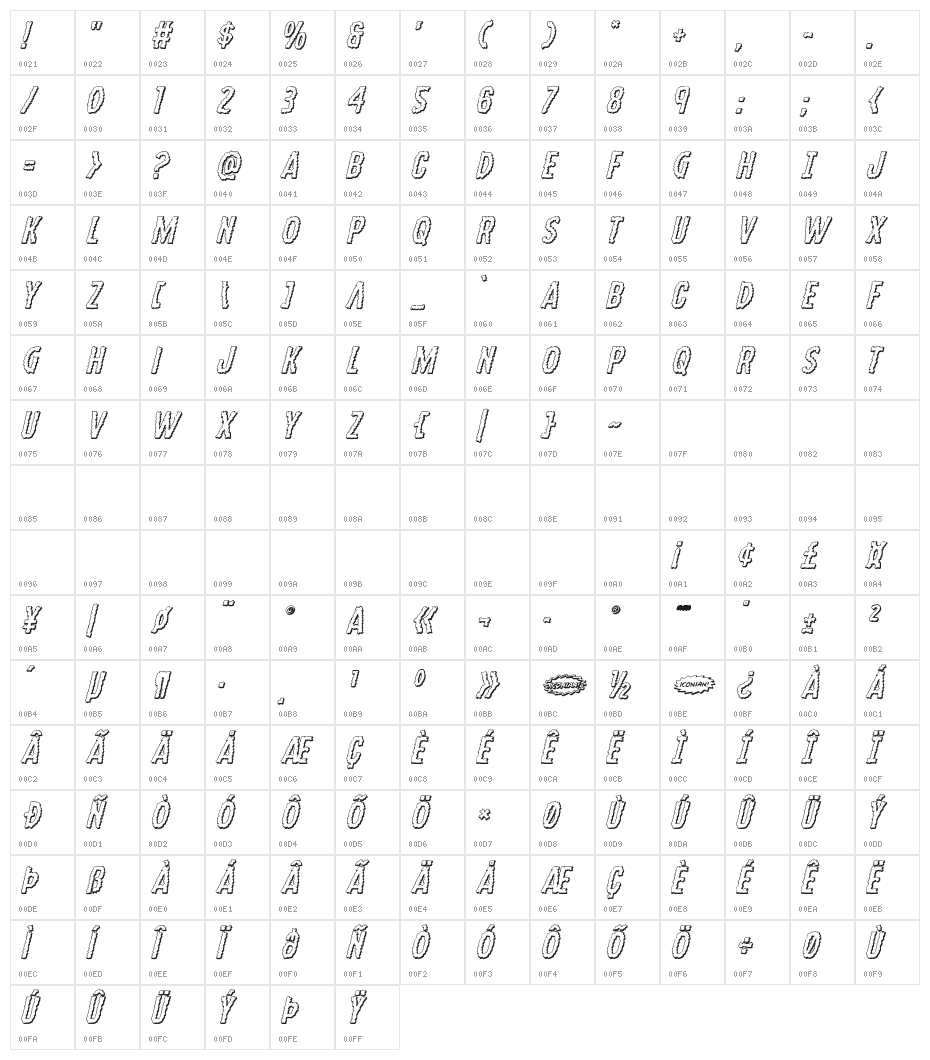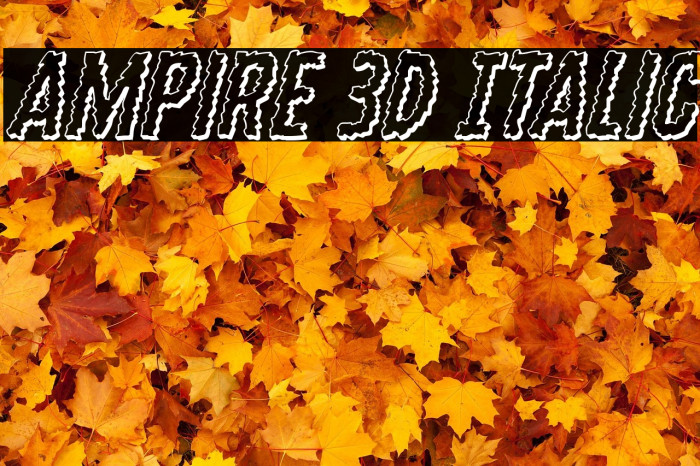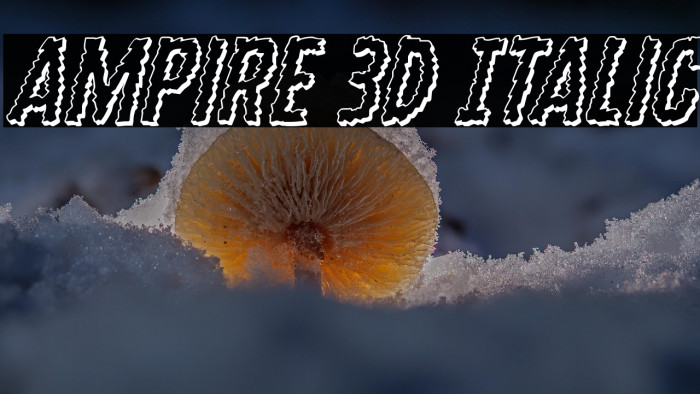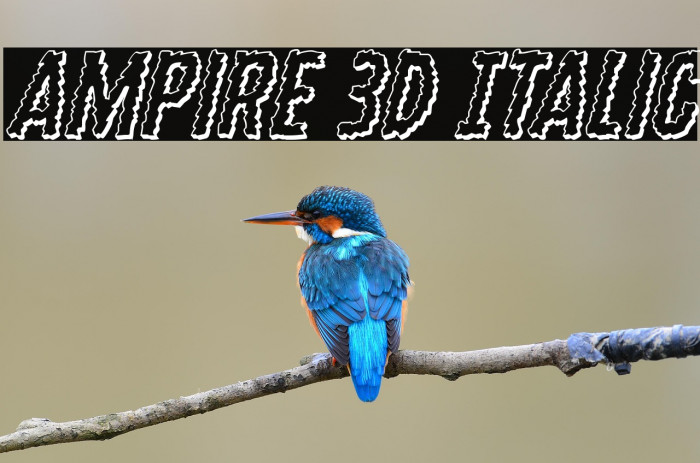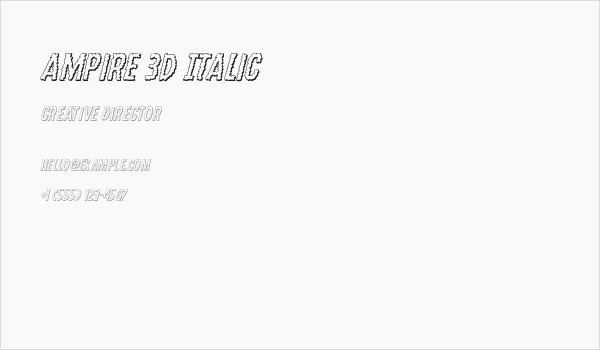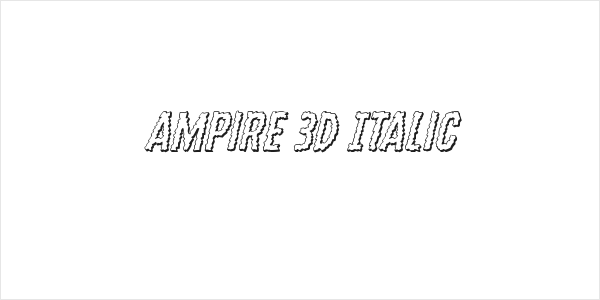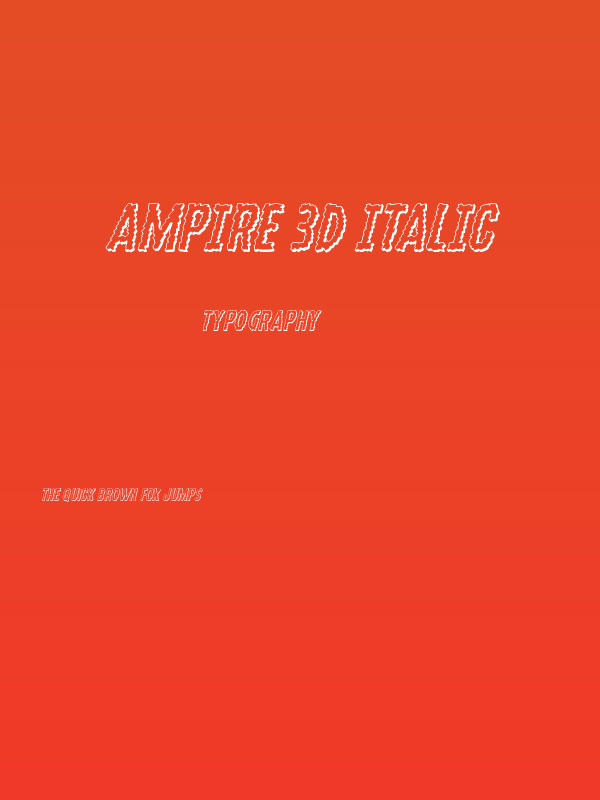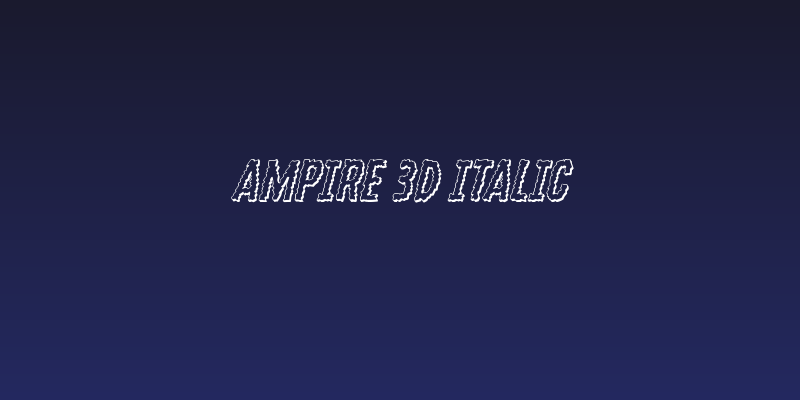
Ampire 3D Italic Font
Ampire 3D Italic Description
This font features a bold, three-dimensional design with a distinct italic slant, giving it a dynamic and energetic appearance. The characters are outlined with a shadow effect, enhancing the 3D illusion and adding depth. The style is playful and eye-catching, making it suitable for creative and informal applications. The uppercase and lowercase letters maintain consistent proportions, while the numbers and special characters are designed to match the overall aesthetic. The font's unique style makes it stand out, ideal for projects that require a bold statement.
| Proposed Projects | Ideal for posters, comic book titles, video game graphics, and any project needing a bold, eye-catching font. |